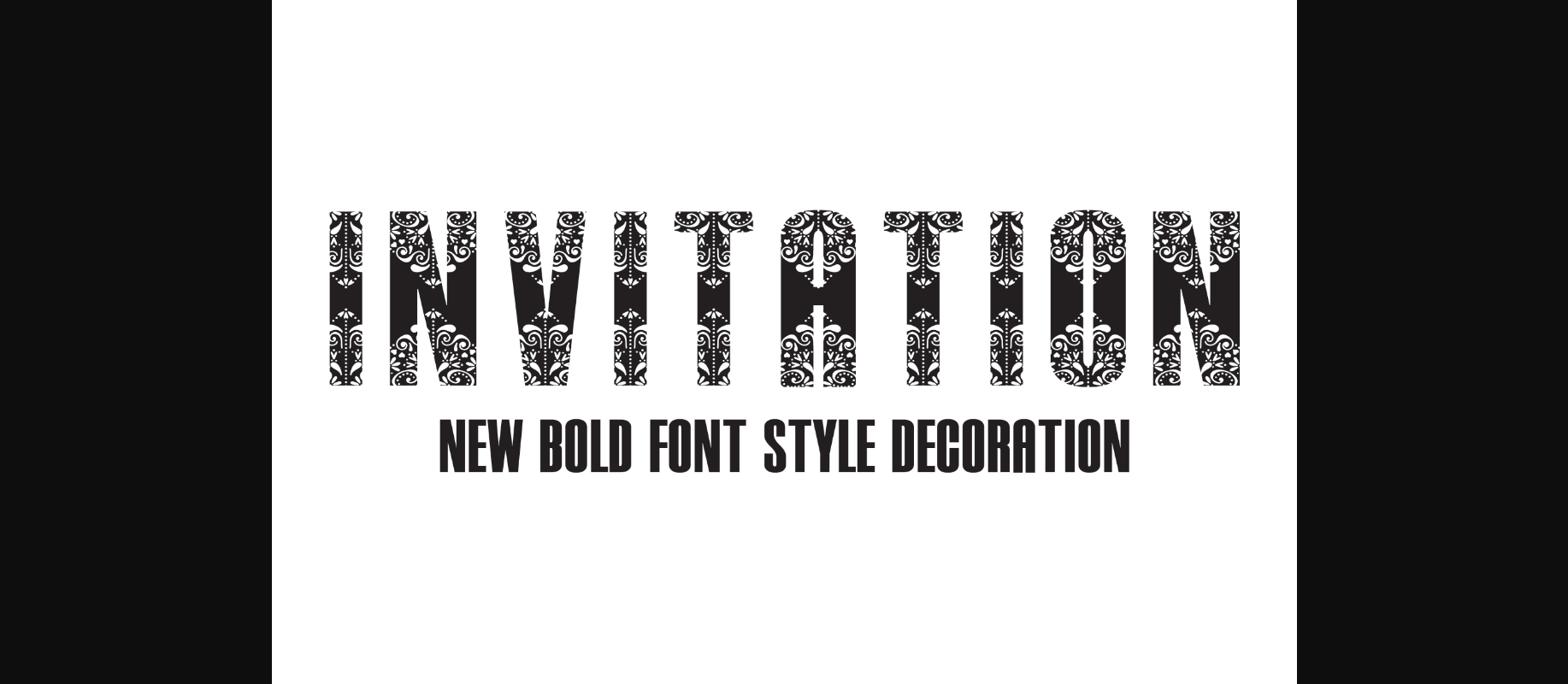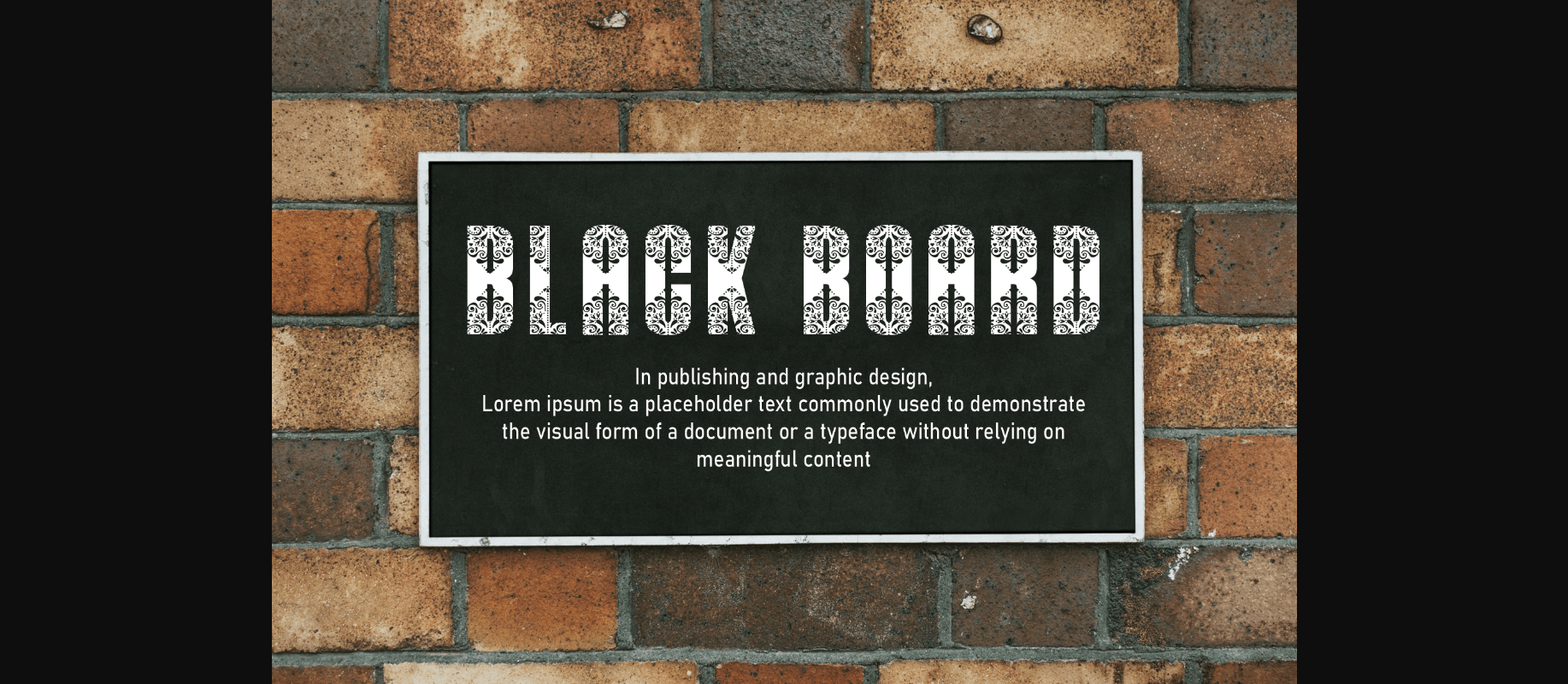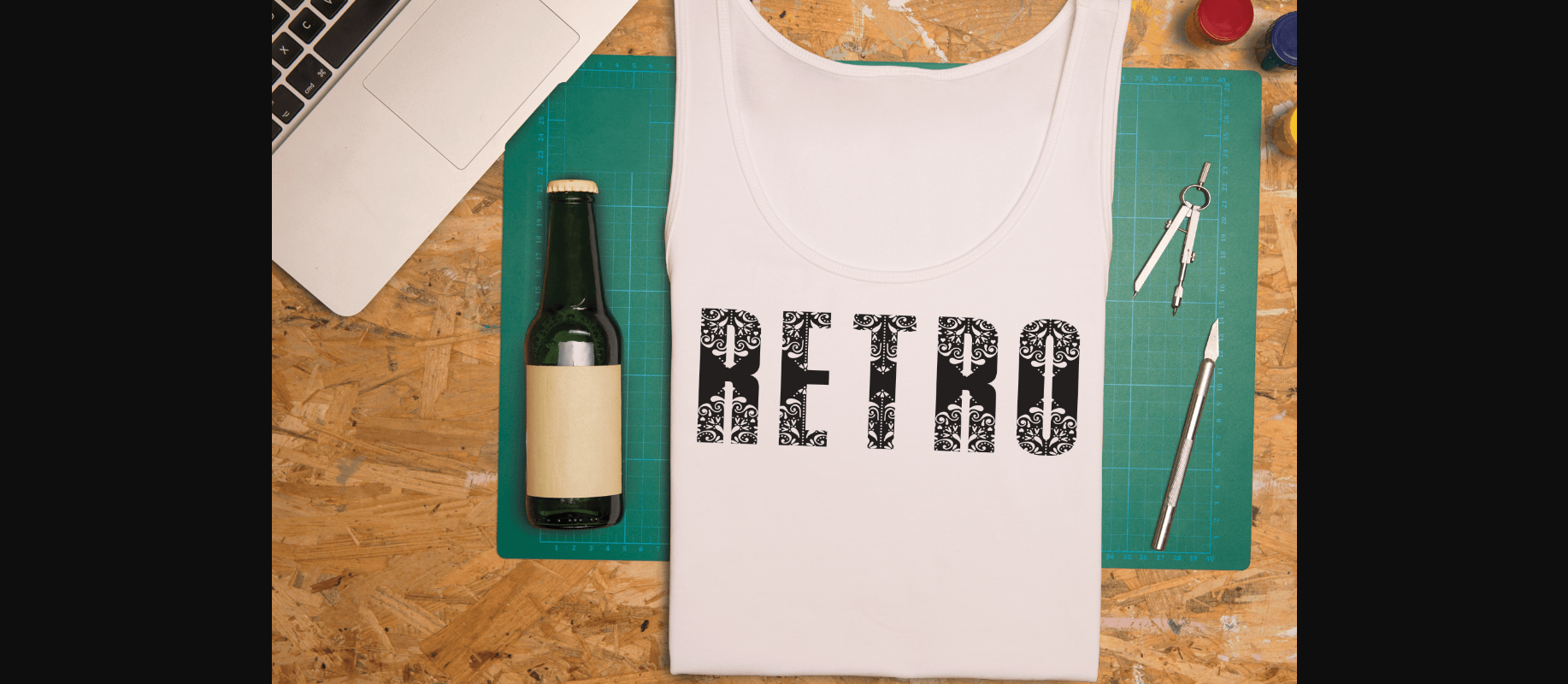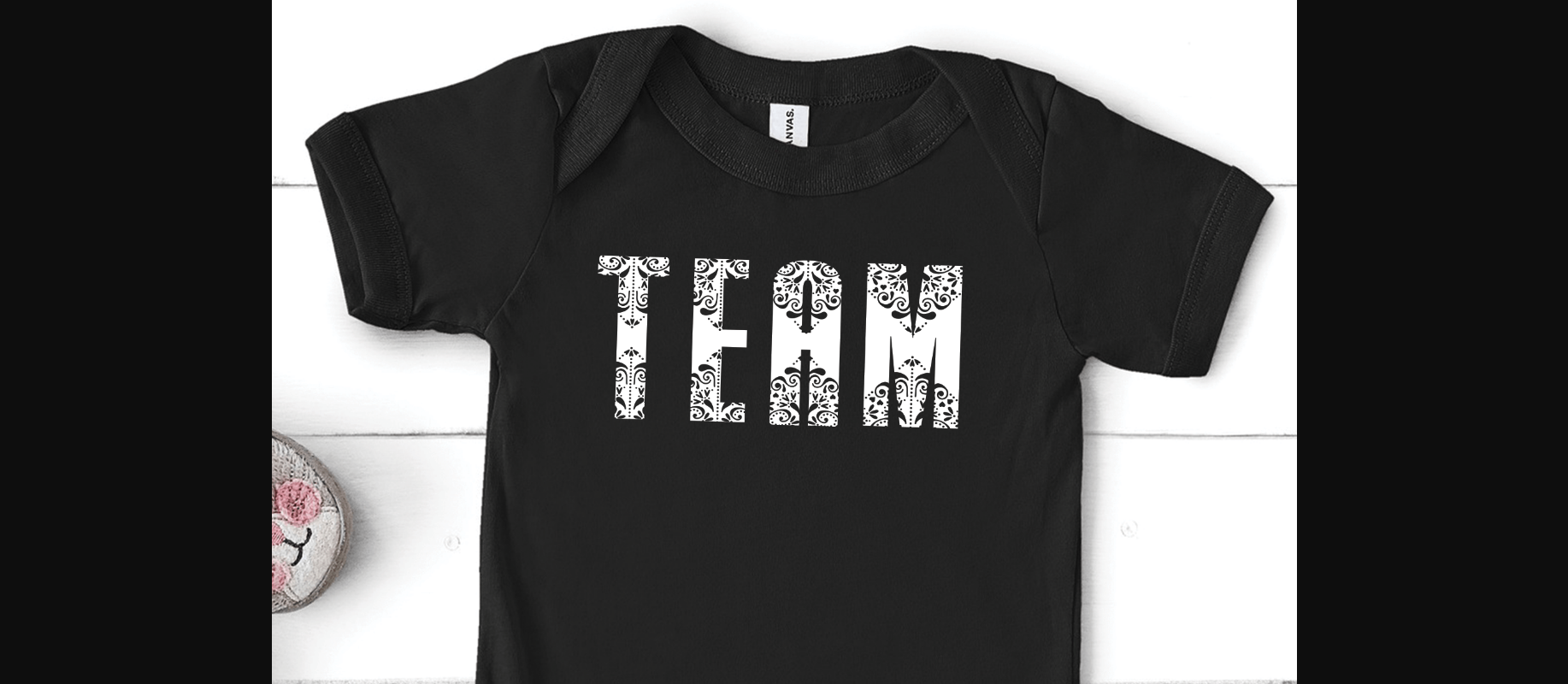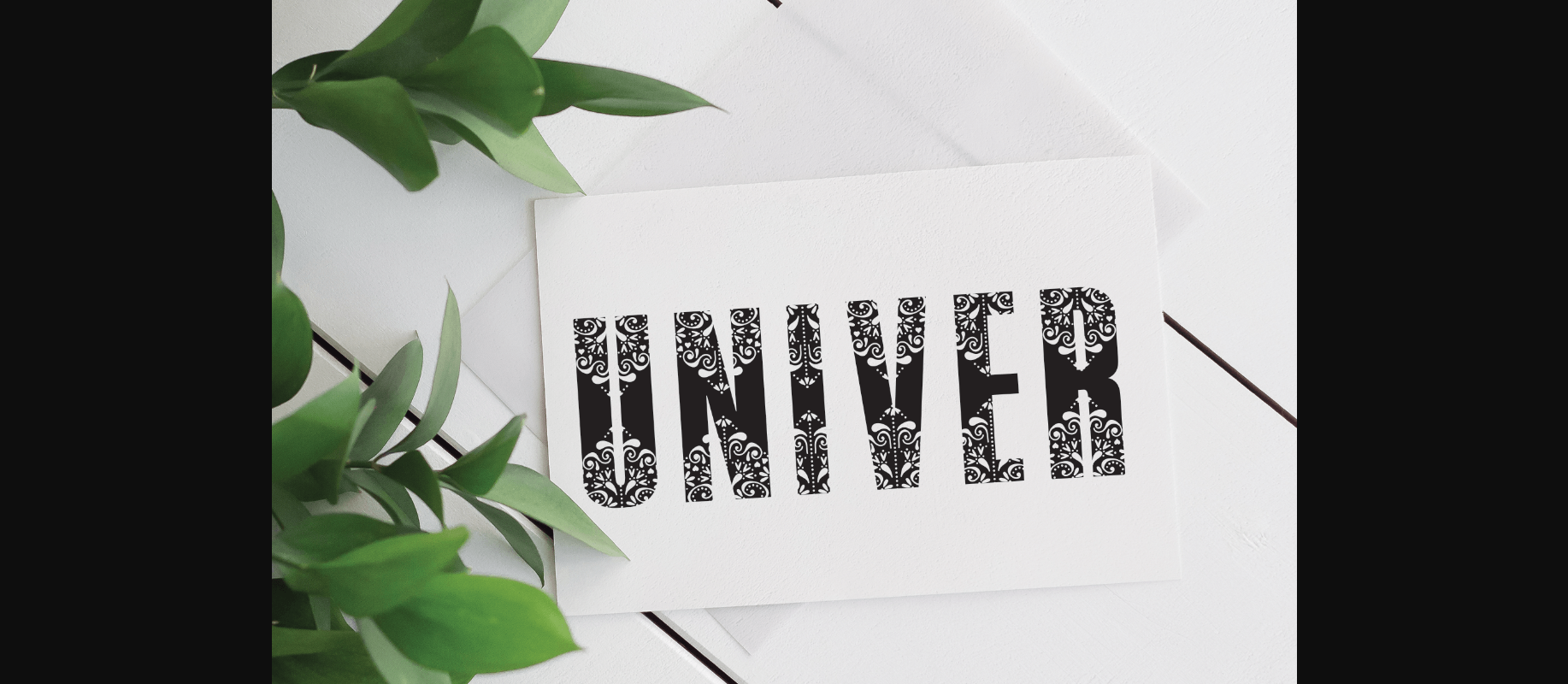
Invitation Font
About Invitation Font
Invitation is a beautiful decorative font that you can use for a variety of projects such as wall hangings, wedding invitations, social media posts, logos, advertisements, product packaging, labels, watermarks, invitations, stationery, or anything that needs to have ornamental elements.